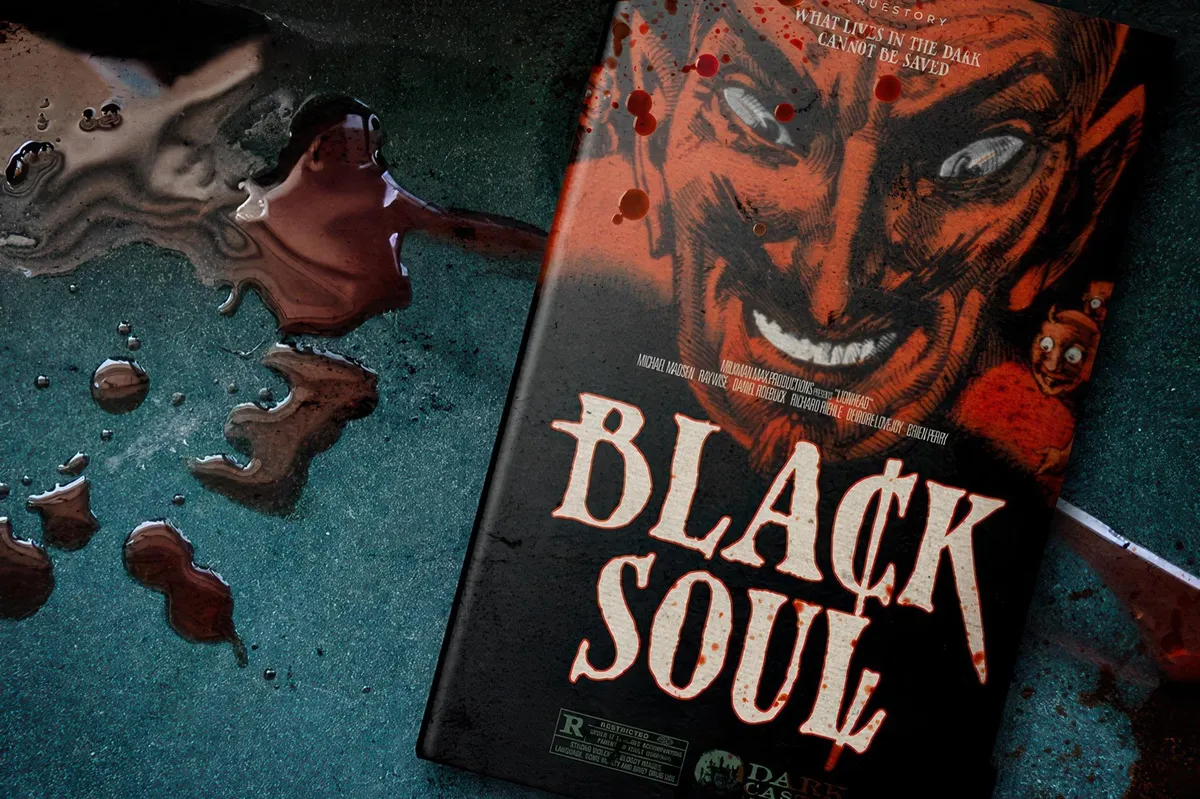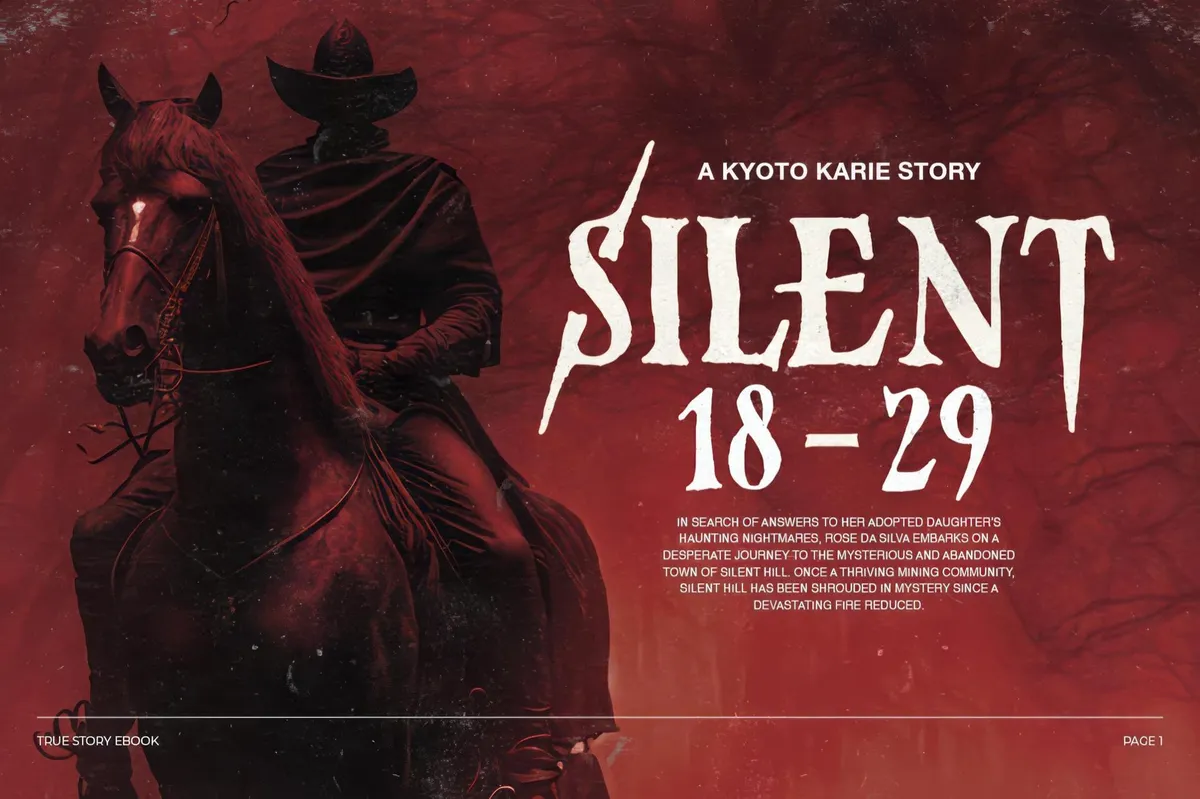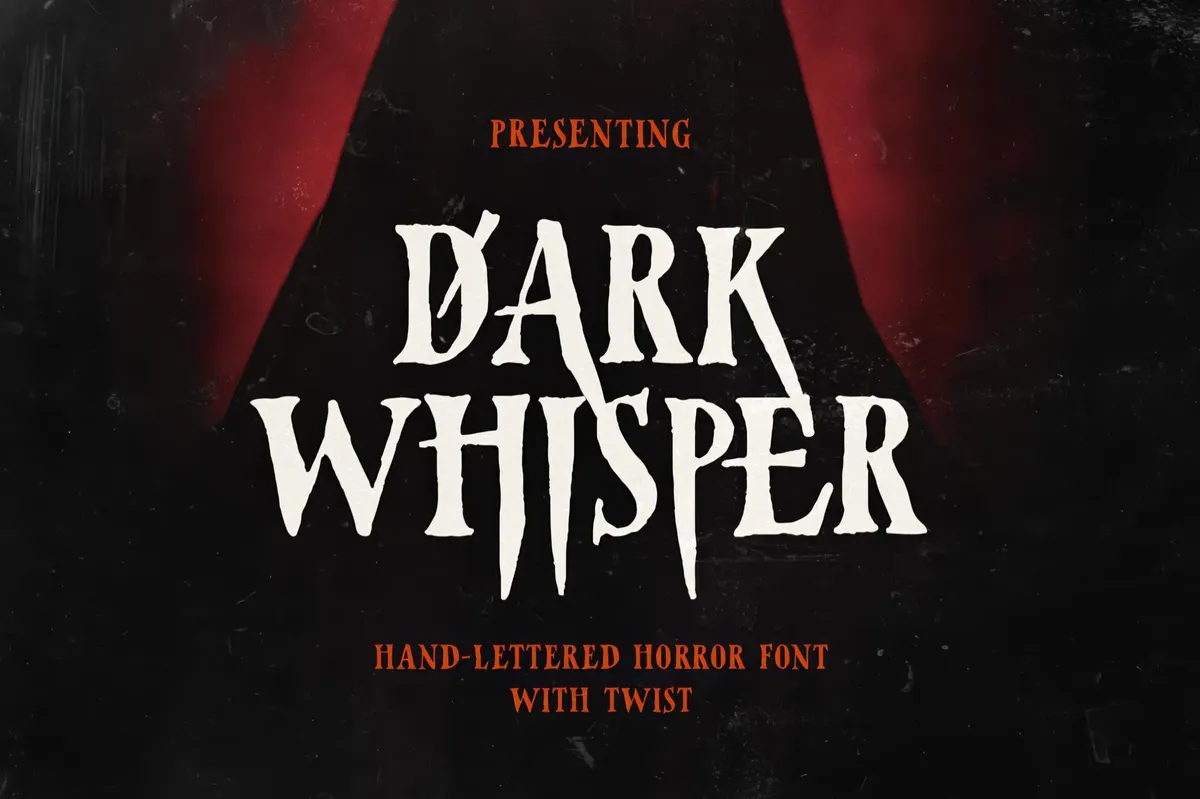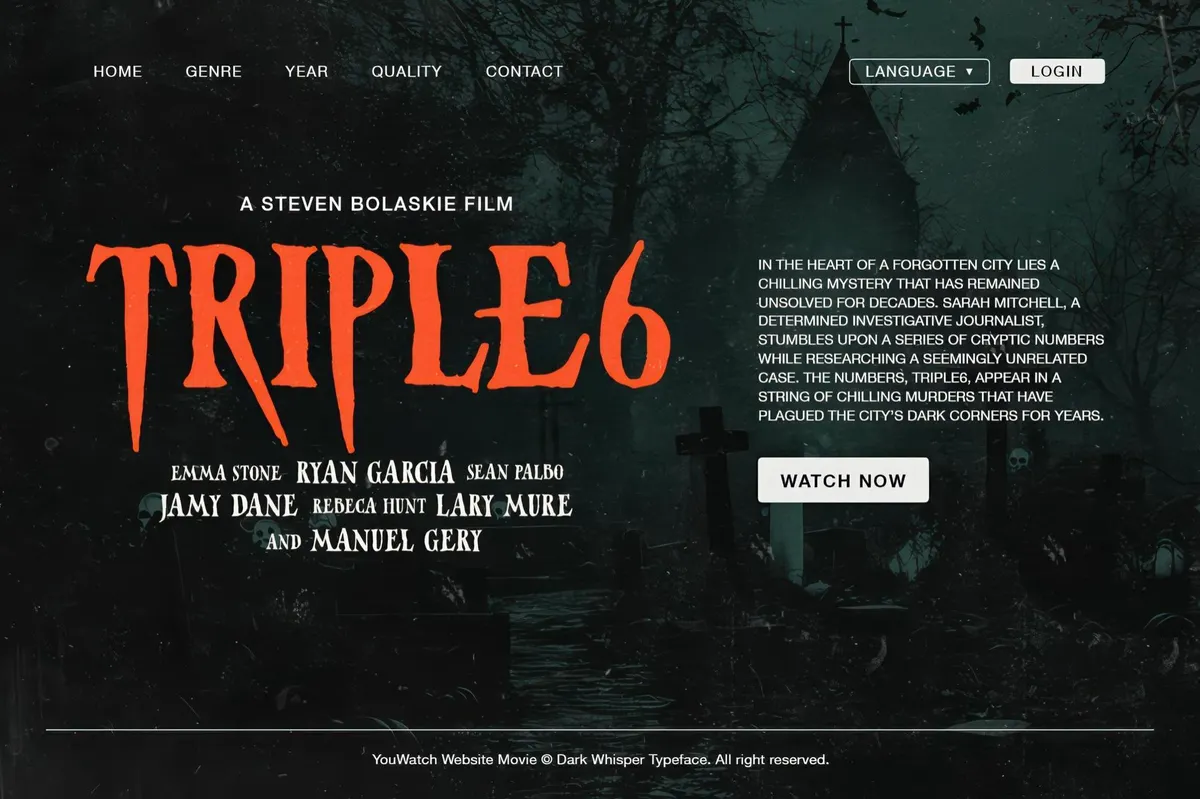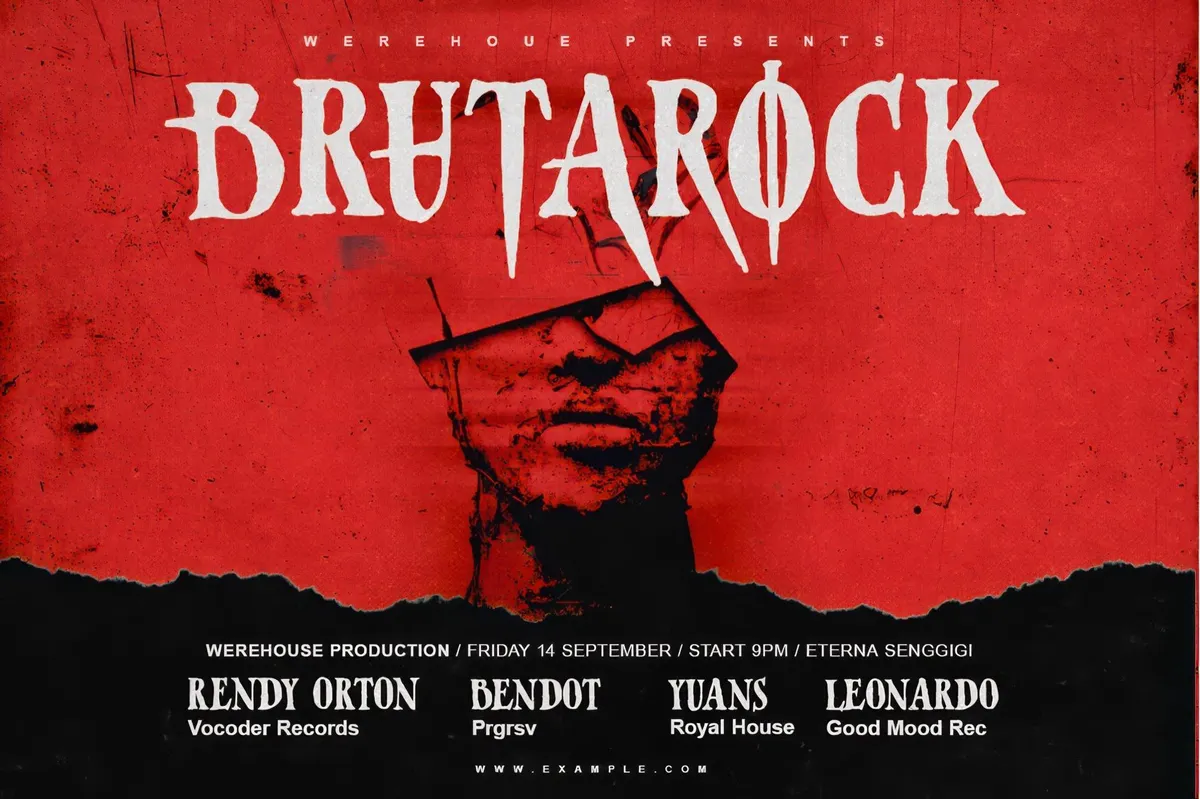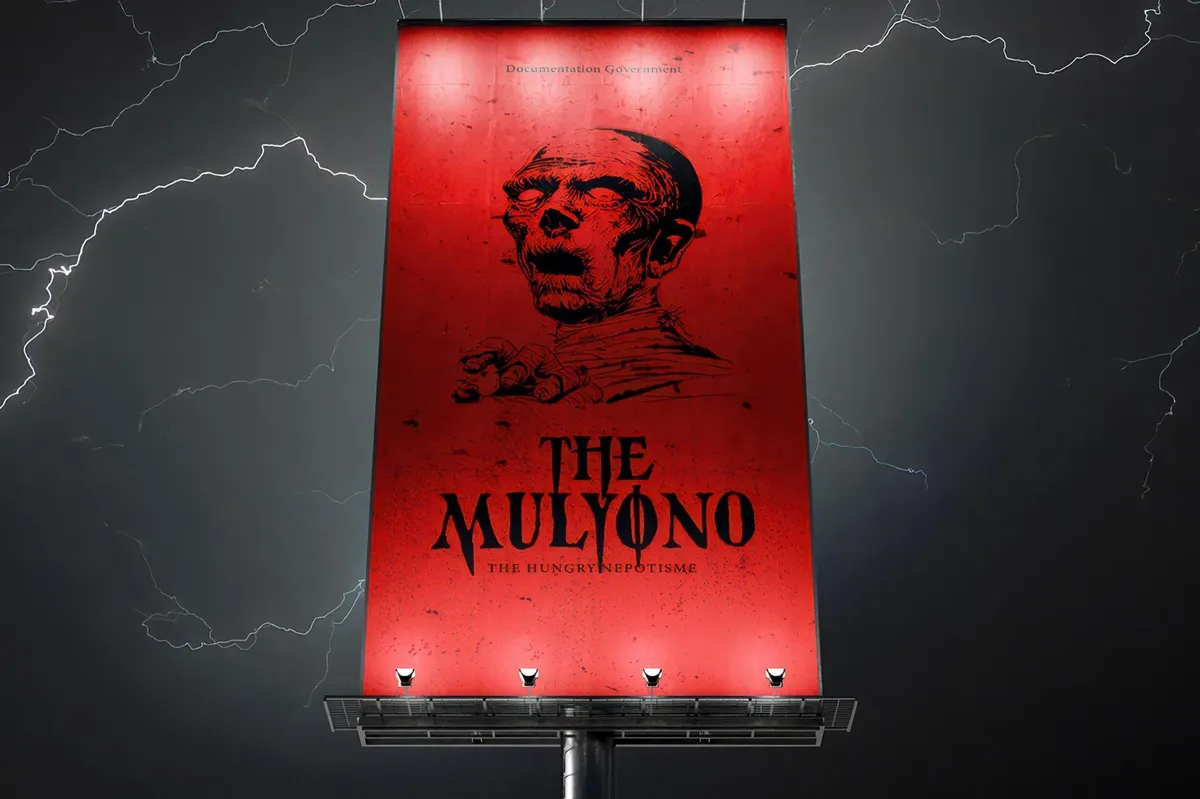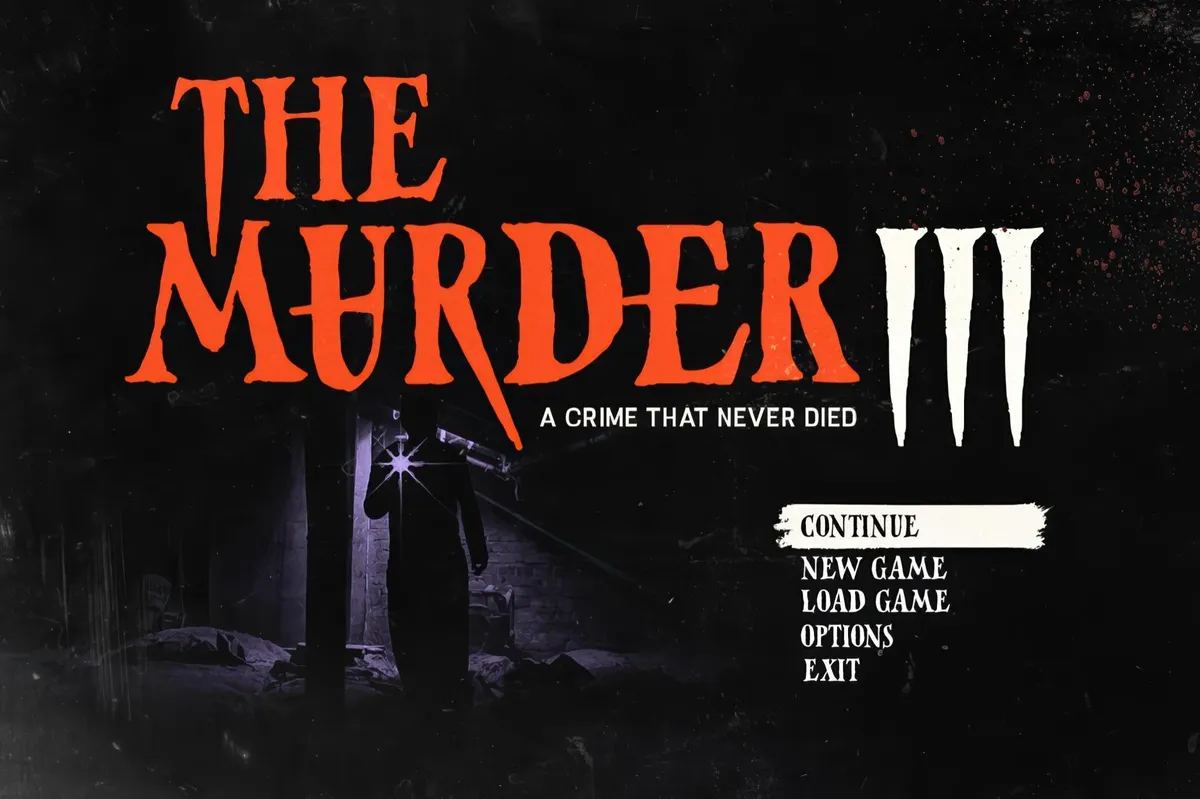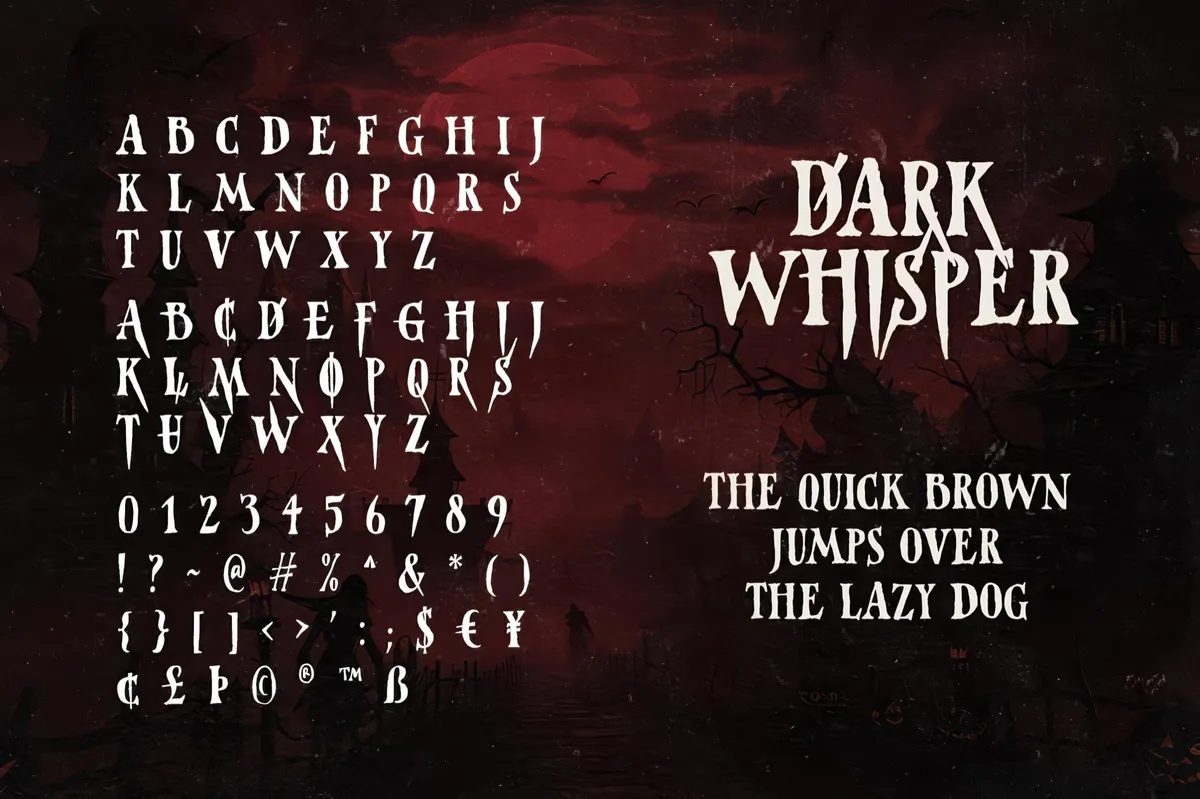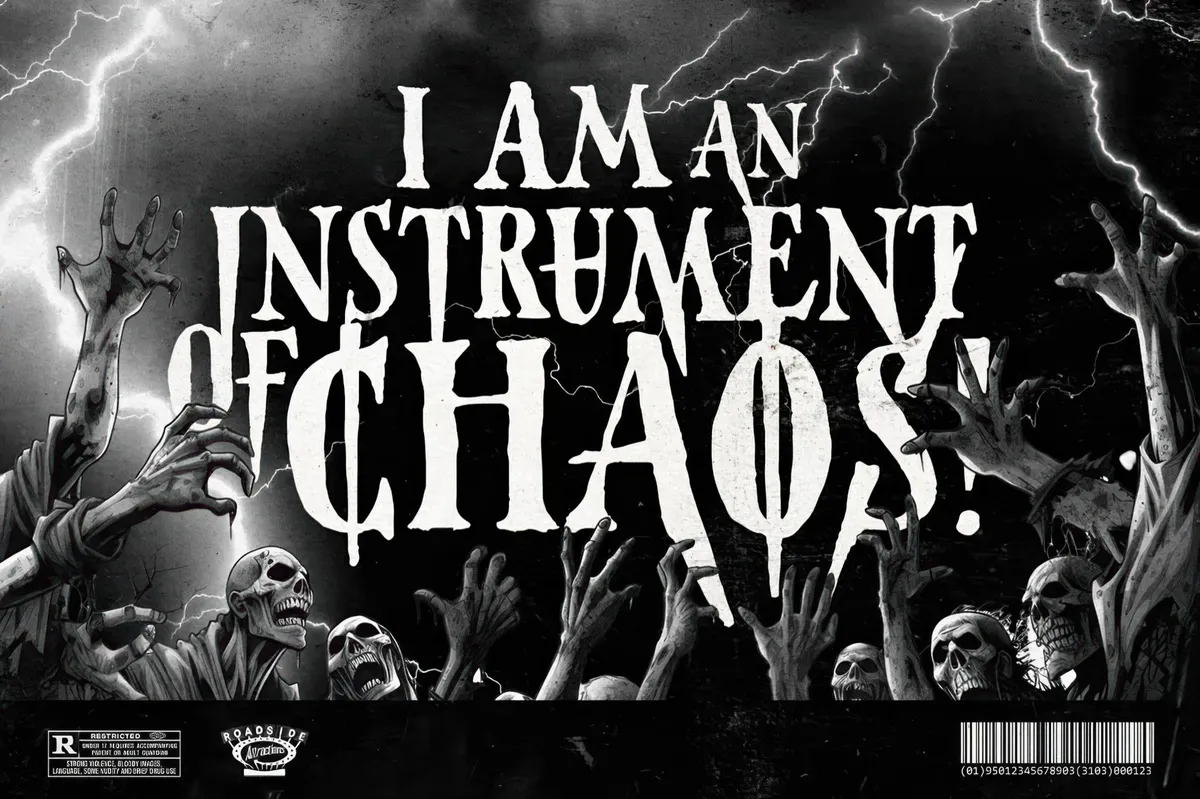
Dark Whisper — Serif Horror Font
Grab yourself the perfect font for your next Halloween project: Dark Whisper is hauntingly brutal, not cheesy or cartoonish. This typeface leans heavily into gothic sophistication, steering clear of horror fonts' clichés for a chilling, dramatic look. You will find a complete character set, including multilingual support and unique lowercase letters. The stylistic expression and functionality make Dark Whisper a go-to for everything from metal album covers and book jackets to music flyers, event posters, quotes, apparel, and beyond.